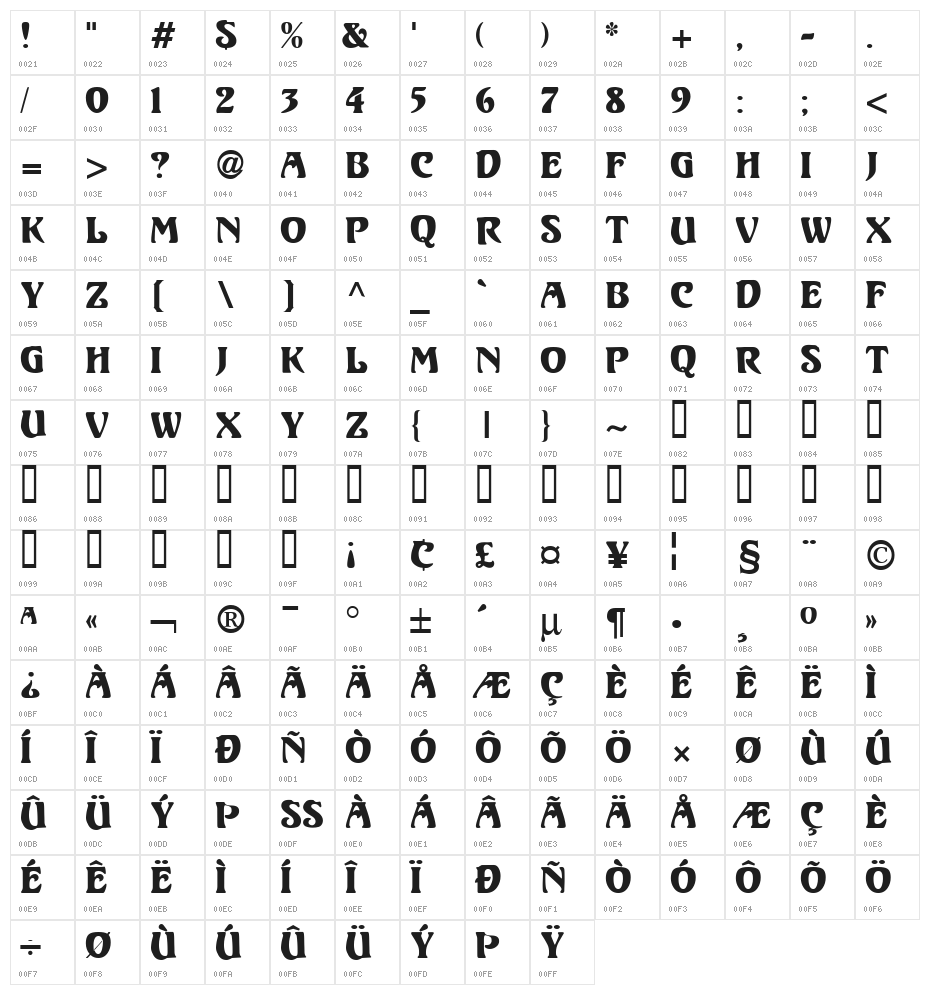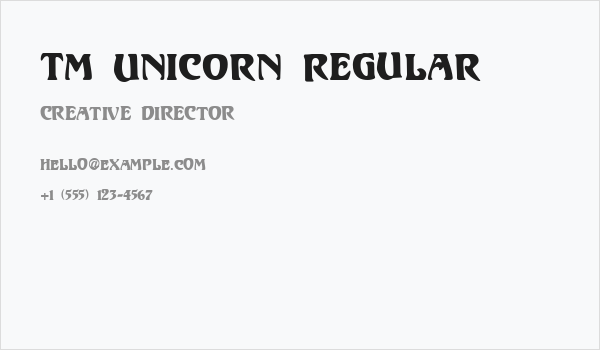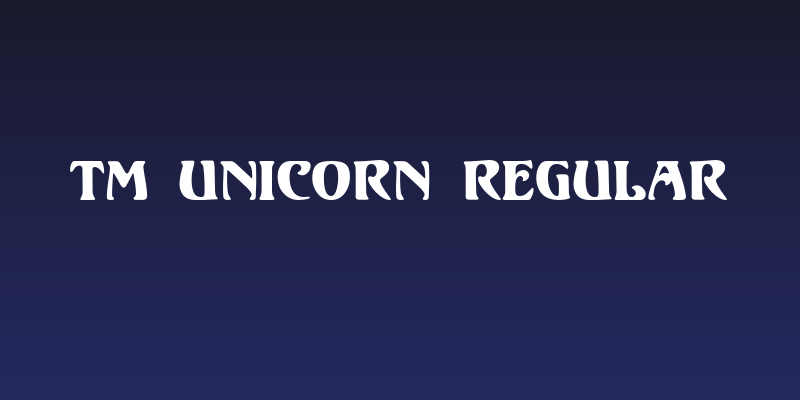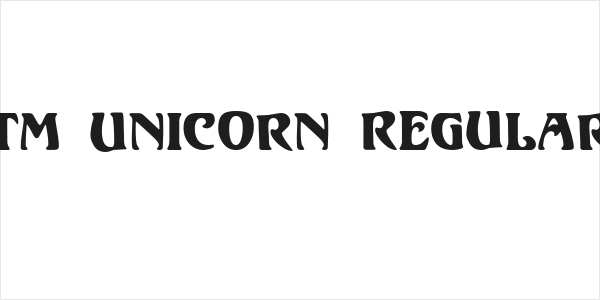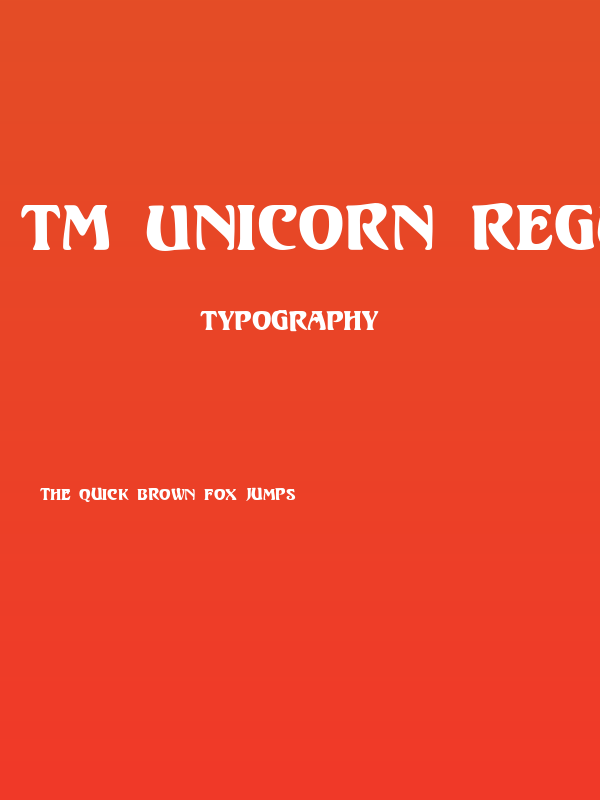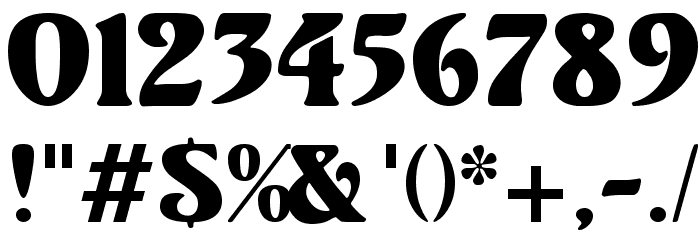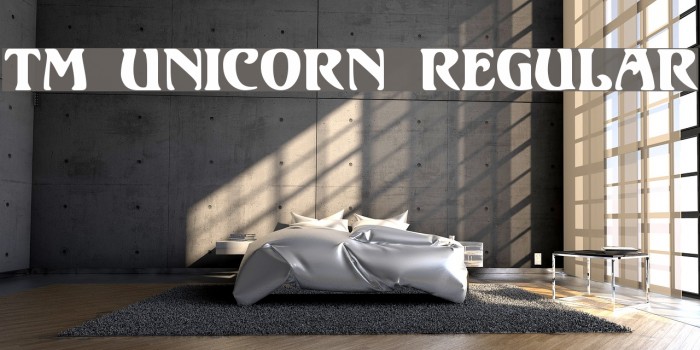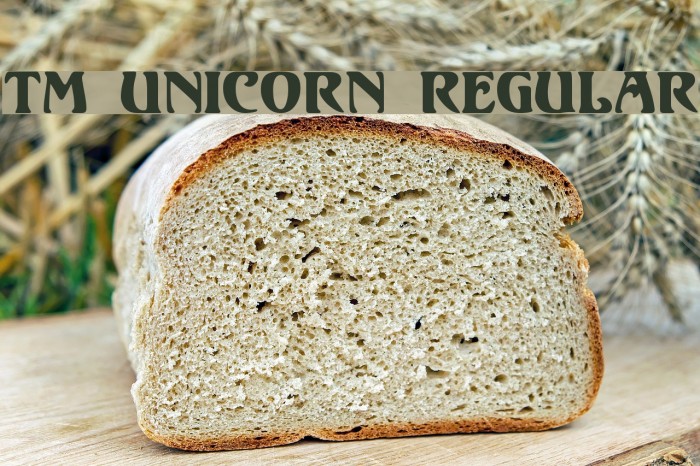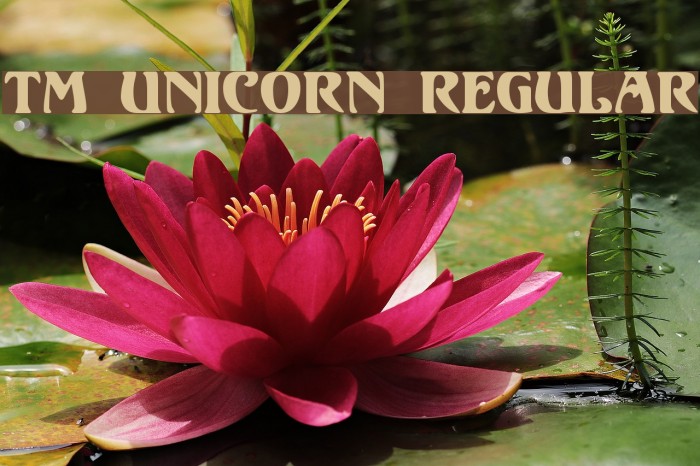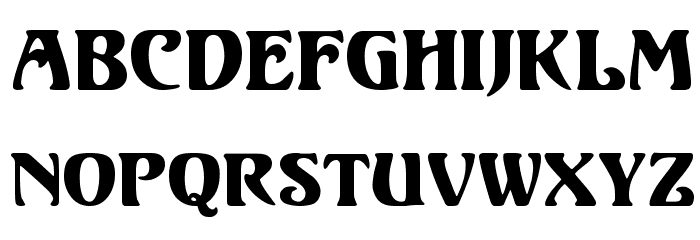
TM Unicorn Regular Font
TM Unicorn Regular Description
This font features a bold and decorative style with unique, whimsical elements that give it a playful yet sophisticated appearance. The characters are designed with a high contrast between thick and thin strokes, adding a dynamic and eye-catching quality. The uppercase letters exhibit a distinct flair with curved and angular elements, while the lowercase letters maintain a consistent style that complements the uppercase. The numerals are bold and easily legible, making them suitable for various design applications. Special characters are included, offering versatility for creative projects.